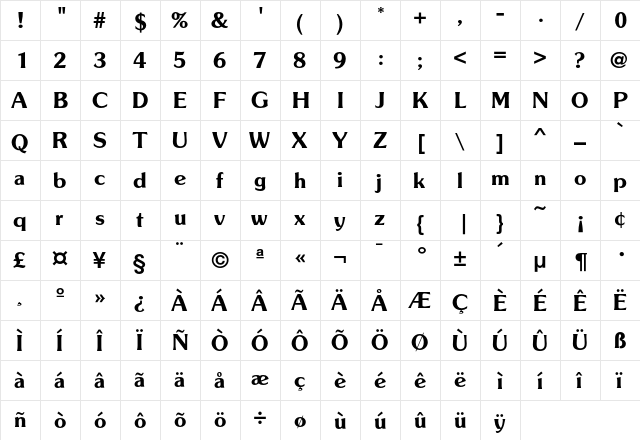
SouvenirGothic DemiBold Font Preview
SouvenirGothic DemiBold
Design Context for SouvenirGothic Typeface
SouvenirGothic takes a clean, functional approach — its unadorned letterforms prioritise legibility and work reliably across screen and print environments. The heavy weight commands attention and anchors typographic hierarchies.